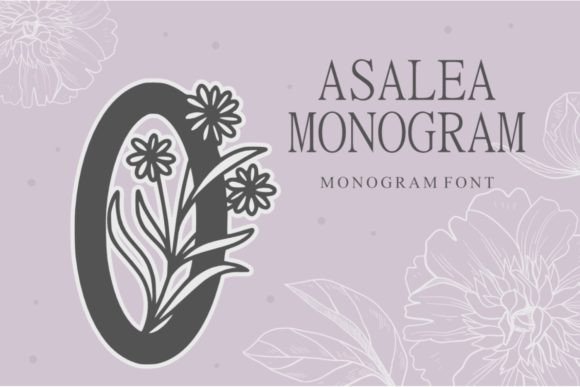
Introducing Asalea Monogram Font, a beautiful and enchanting decorative font that will add a touch of elegance and charm to your creative projects. With its intricate floral ornaments and delicate lines, Asalea Monogram is perfect for adding a personal touch to your designs.
Asalea Monogram is a display font that exudes sophistication and beauty. Its elegant letterforms are adorned with intricate floral designs, making it a perfect choice for creating stunning logos, invitations, and other marketing materials. The font also works well for crafting projects, such as personalized cards and scrapbook pages.
The font comes with a full set of uppercase and lowercase letters, numbers, and symbols, making it suitable for a wide range of projects. It also supports multiple languages, ensuring that you can use it for projects in different languages.
Asalea Monogram is a versatile font that can be used for a variety of creative projects. Its delicate style makes it perfect for adding a touch of femininity to your designs, while its bold lines ensure that it remains readable, even at small sizes.